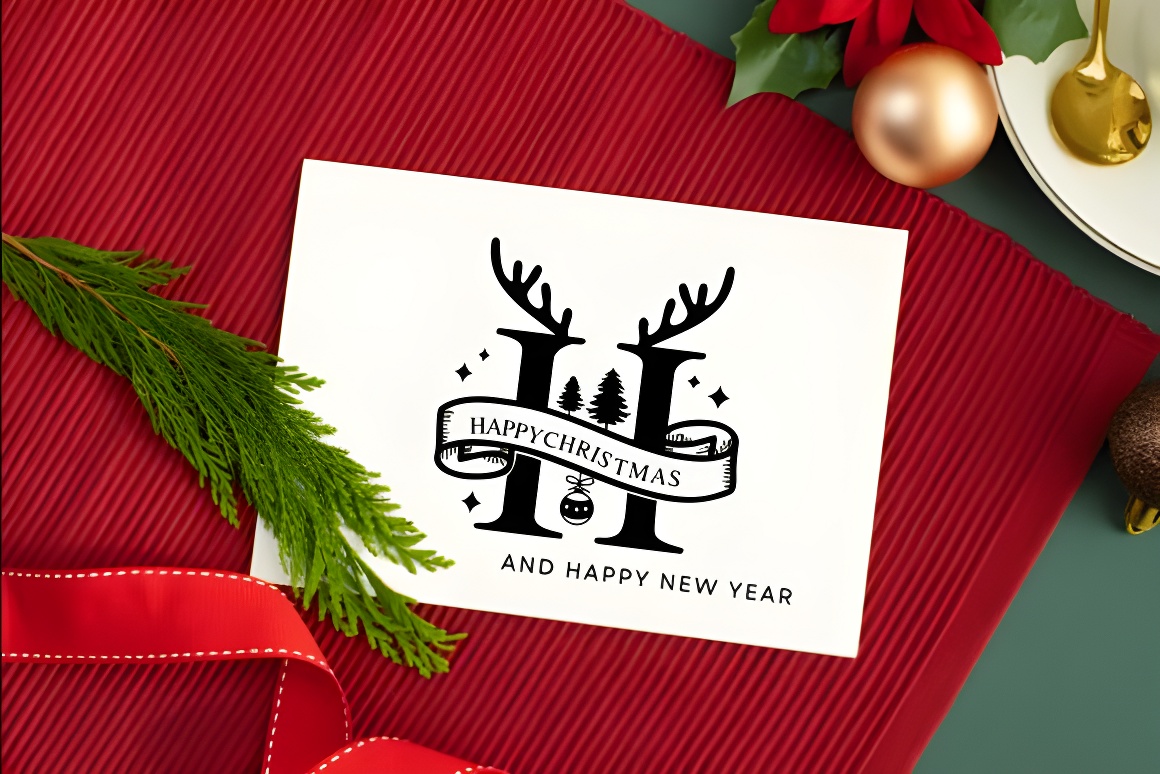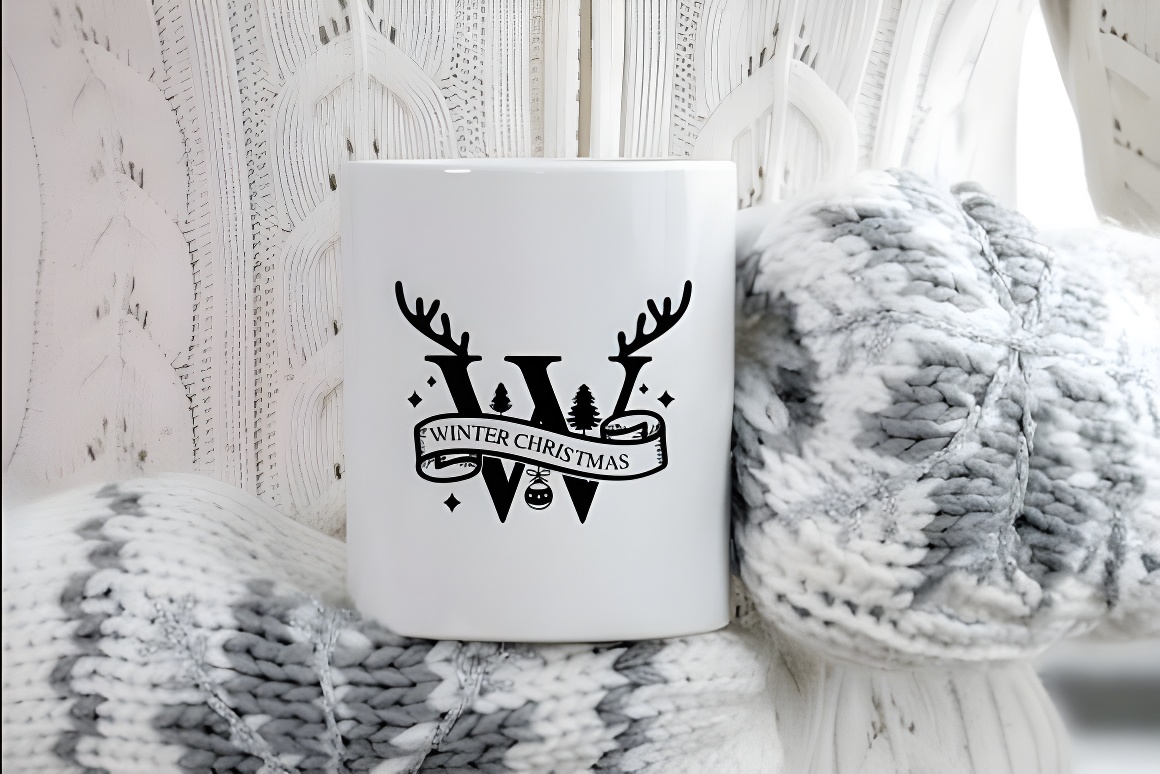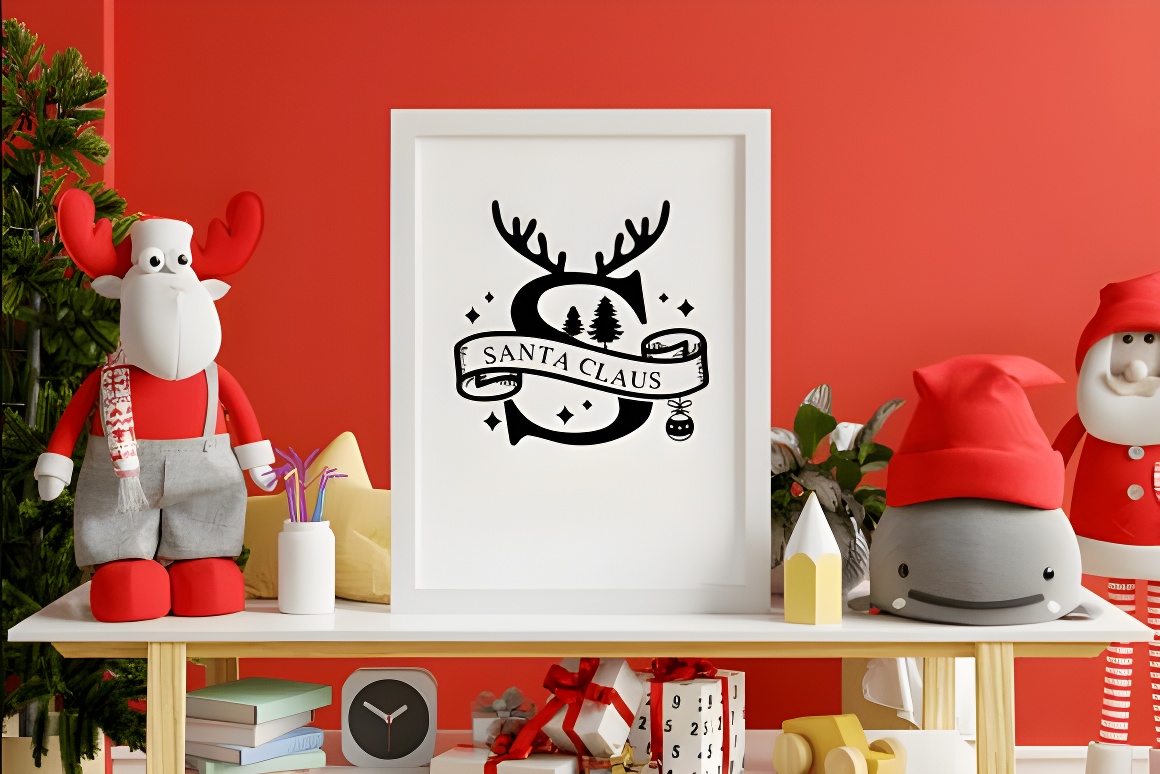
Christmas Monogram Font | Holiday Decorative Typeface
Festive Christmas monogram font featuring antler motifs, trees & stars. Bold, legible letters for cards, gift tags, ornaments & Cricut/Silhouette crafts. Ideal for holiday branding, logos & seasonal projects.